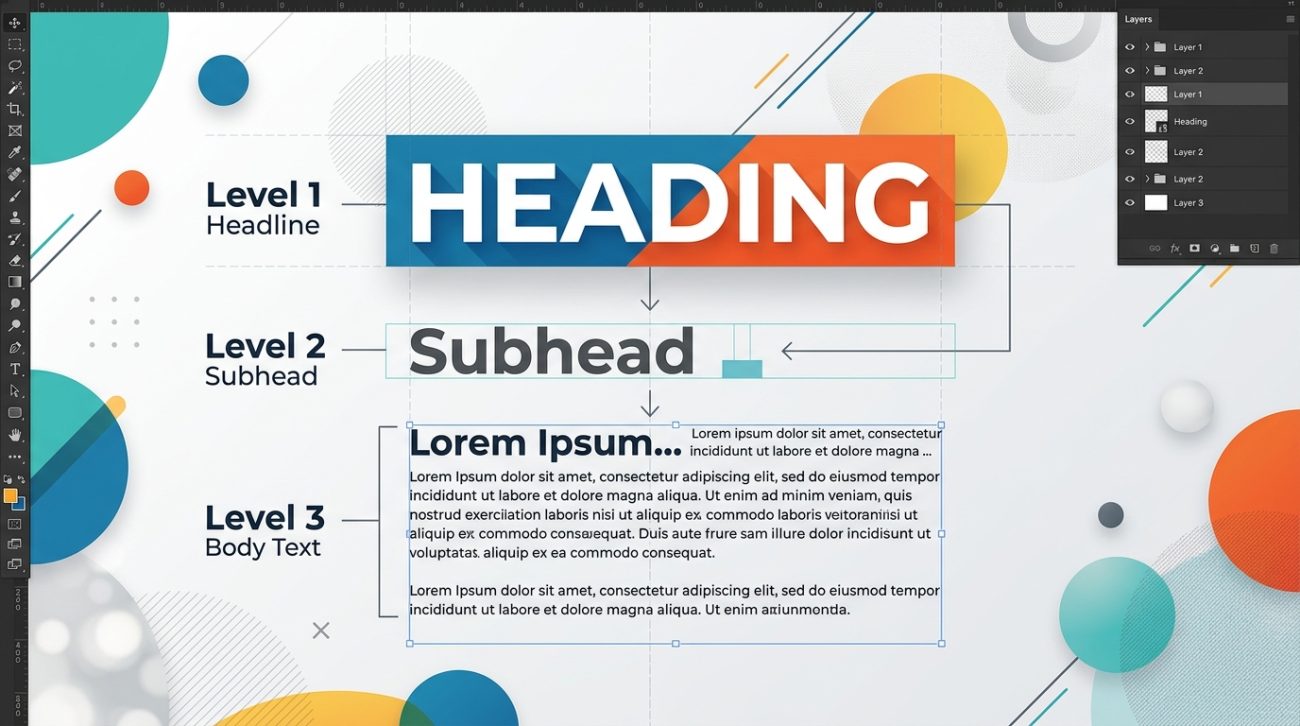
You open a website and instantly know where to look. Your eye moves from the headline to the subhead, then down to the body text without conscious effort. That’s typographic hierarchy at work, and it’s one of the most powerful tools in your design arsenal.
Typographic hierarchy is the [visual system](https://en.wikipedia.org/wiki/Visual_hierarchy) that guides readers through content by using size, weight, spacing, and contrast to establish importance. It helps people scan information efficiently, understand relationships between content sections, and absorb your message without confusion. Good hierarchy is invisible but essential, making every design from websites to posters instantly more readable and professional.
What typographic hierarchy actually means
Typographic hierarchy organizes text so readers understand what matters most at a glance.
Think of it like a newspaper. The main headline grabs attention. Subheadings break up sections. Body text delivers details. Captions add context. Each level serves a specific purpose, and the visual differences between them create a roadmap through the content.
Without hierarchy, everything competes for attention equally. Your reader gets overwhelmed and leaves.
With hierarchy, you control the reading experience. You decide what gets noticed first, second, and third. You create a clear path from entry point to call to action.
The system works through contrast. Big versus small. Bold versus light. Tight spacing versus generous spacing. Each contrast signals a different level of importance.
The building blocks that create hierarchy
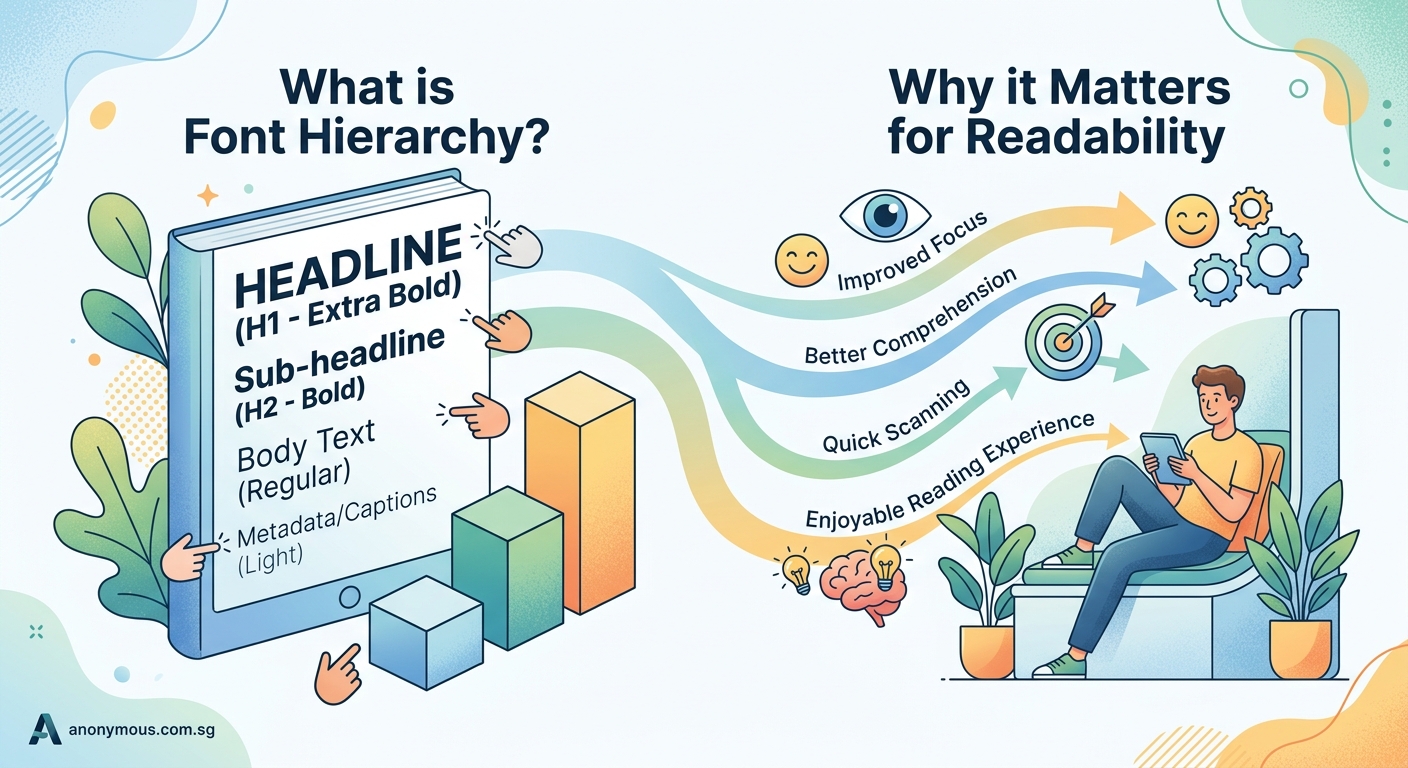
Several typographic elements work together to establish clear levels.
Size is the most obvious tool. Larger text naturally draws the eye first. A 48px headline dominates a 16px body paragraph. The difference in scale creates instant separation.
Weight adds another layer. Bold text stands out from regular text even at the same size. A bold subheading at 24px creates a clear break from 24px body text set in regular weight.
Spacing controls how text breathes. More space around a headline isolates it and increases its importance. Tighter line spacing in body text creates dense blocks that signal detailed information.
Color and contrast guide attention through visual intensity. Dark text on a light background creates high contrast that’s easy to read. Lighter text recedes, perfect for supporting information like captions or metadata.
Case and style provide subtle cues. All caps headlines feel bold and declarative. Italic text suggests emphasis or attribution. Each choice communicates something about the content’s role.
How to build effective hierarchy in three steps
Creating clear hierarchy doesn’t require guesswork. Follow this process.
Map your content levels before designing. List every type of content in your document. Main headline. Section headers. Subheadings. Body text. Captions. Quotes. Labels. Each needs its own visual treatment. Knowing all your levels upfront prevents adding inconsistent styles later.
Establish clear contrast between adjacent levels. Your main headline should be noticeably larger than your section headers. Section headers should clearly differ from subheadings. Aim for at least a 2:3 ratio between levels. If your body text is 16px, make subheadings at least 24px. Make section headers 36px or larger. The contrast should be obvious, not subtle.
Test by squinting at your design. Blur your eyes slightly and look at your layout. Can you still see distinct levels? Do the important elements still stand out? If everything blends together, you need more contrast. If one element dominates everything else, dial it back. The hierarchy should create a clear visual rhythm, not chaos or monotony.
Common hierarchy patterns that work
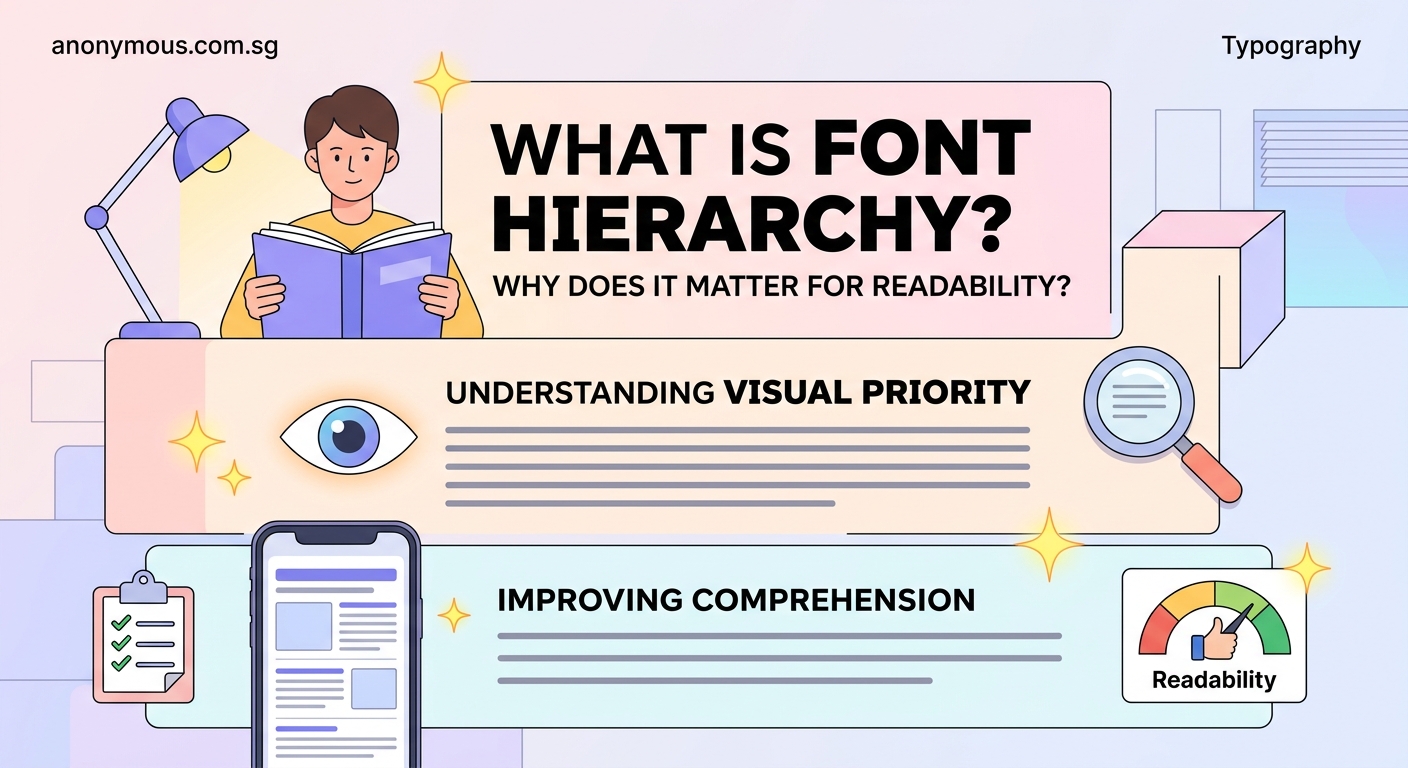
Certain structures appear repeatedly because they solve real problems.
The inverted pyramid puts the largest, boldest element at the top and decreases size and weight as you move down. News articles use this pattern. Readers get the most important information first, then progressively more detail.
The modular grid creates hierarchy through positioning and size within defined sections. Each module has its own internal hierarchy, but the grid itself establishes relationships between modules. Magazines and modern websites rely on this approach.
The progressive disclosure pattern reveals information in layers. A large headline and deck introduce the topic. Subheadings break content into scannable chunks. Body text provides depth for engaged readers. Each layer serves a different reading mode.
The typographic scale uses mathematical ratios to create harmonious size relationships. A 1.5 ratio means each level is 1.5 times larger than the level below it. 16px body text, 24px subheads, 36px section headers, 54px main headline. The consistent ratio creates visual coherence.
Apply those lessons to your next project. Build a small library of hierarchy patterns that work for your typical needs. Document what you discover.
Over time, good hierarchy becomes second nature. You’ll see weak hierarchy everywhere and know exactly how to fix it. You’ll design with structure from the start instead of adding it as an afterthought.
That shift in thinking separates designers who struggle with layout from those who make it look easy. Typographic hierarchy is the foundation that makes everything else work better.